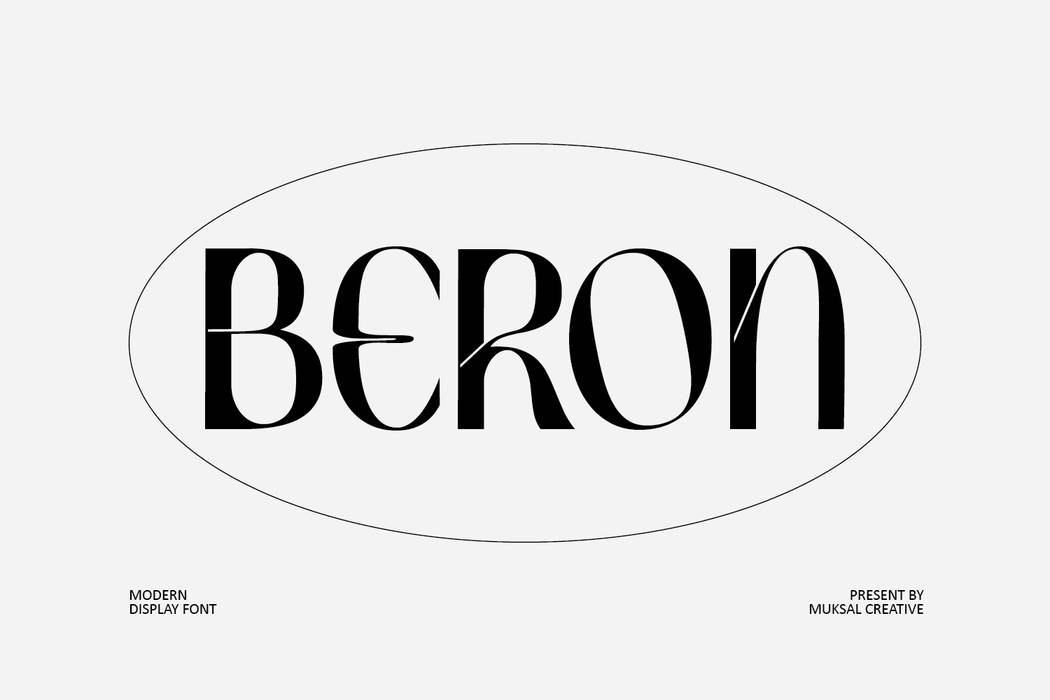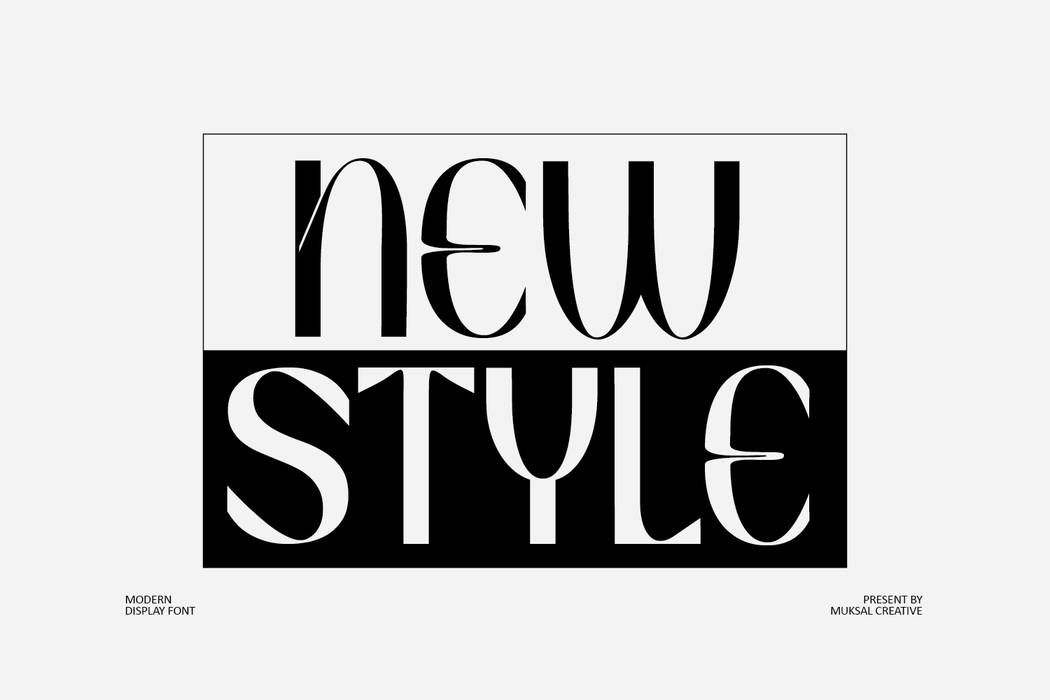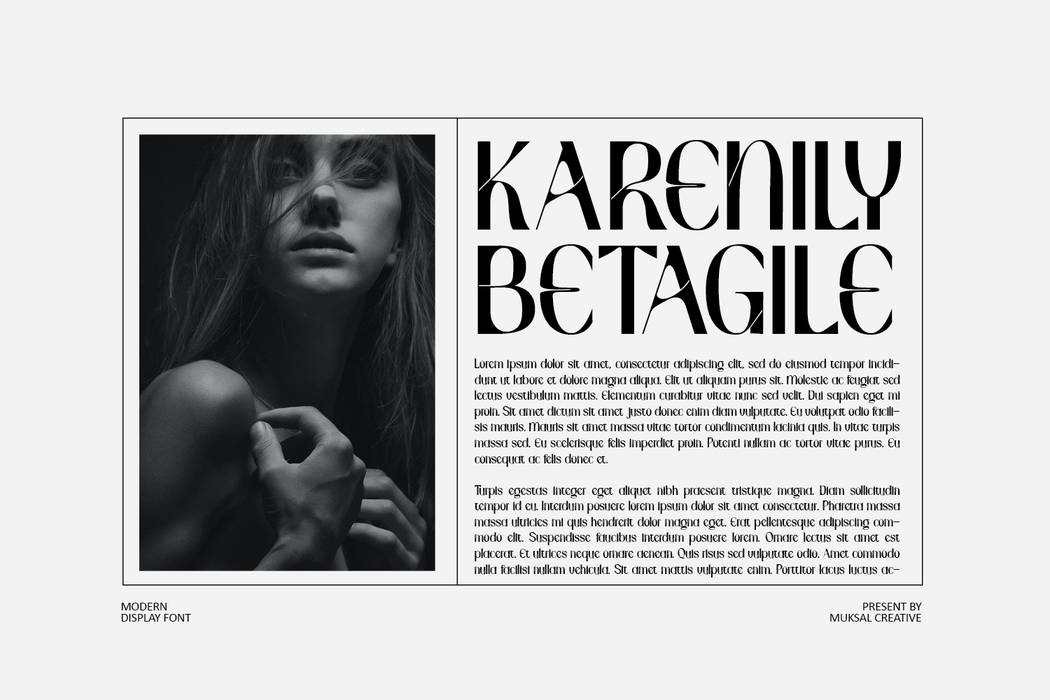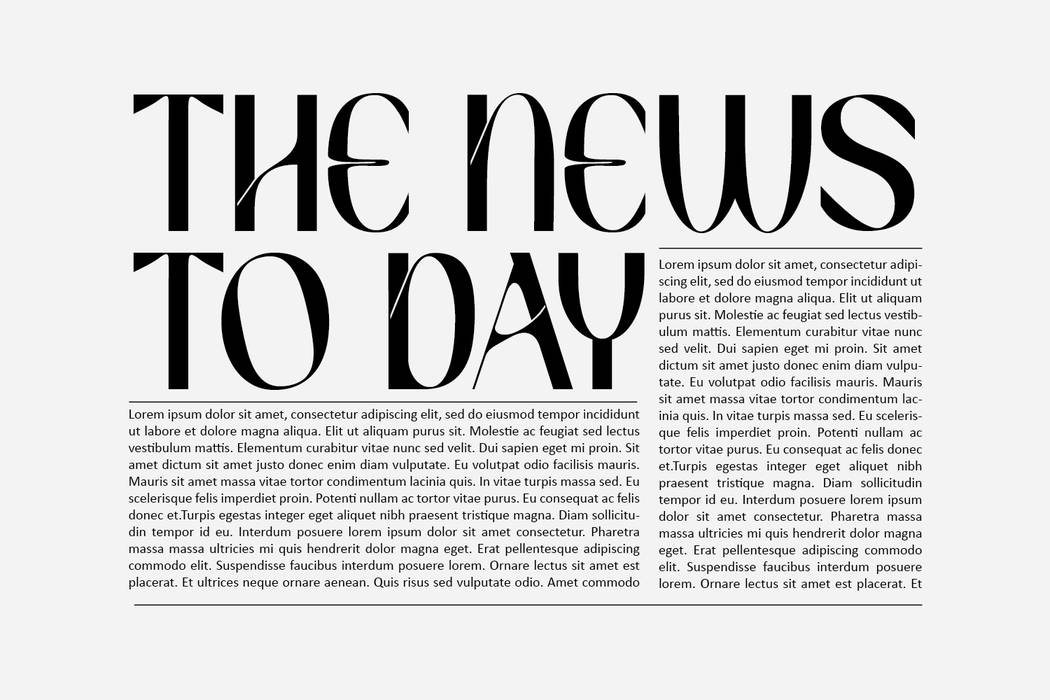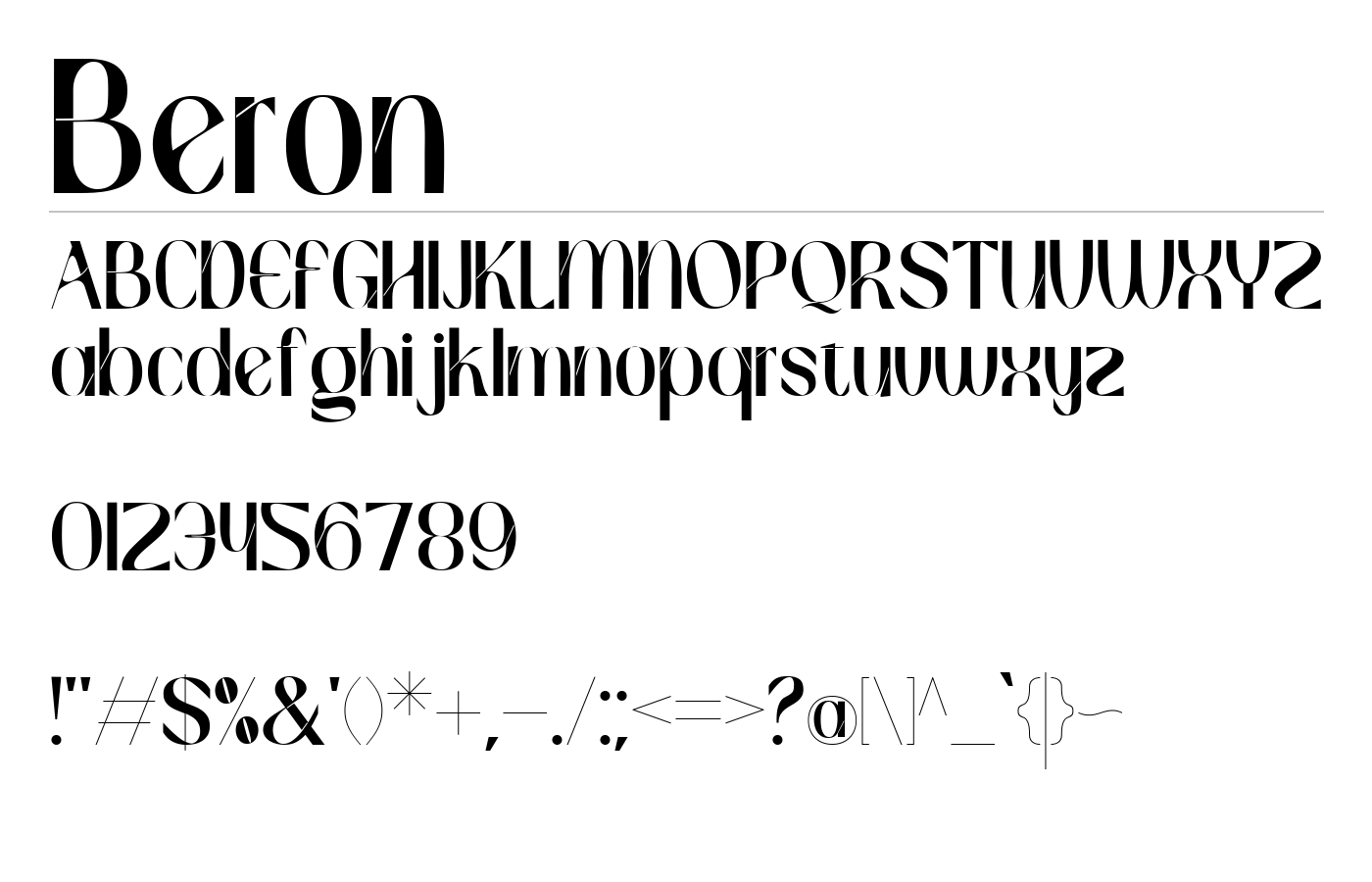
Beron is a modern serif font with a stylish, high-contrast design that combines elegant thin strokes and bold thick elements, creating a striking visual rhythm. Its unique letterforms with artistic curves and sharp edges give it a sophisticated and contemporary feel, making it ideal for fashion branding, editorial headlines, and luxury packaging that seek to convey a chic and refined personality. This font stands out best in large sizes where its exquisite details can shine, adding a touch of modern elegance to any design.
Beron Font
About Beron Font
| Font family | Beron Font |
| Designer | Muksal Creative |